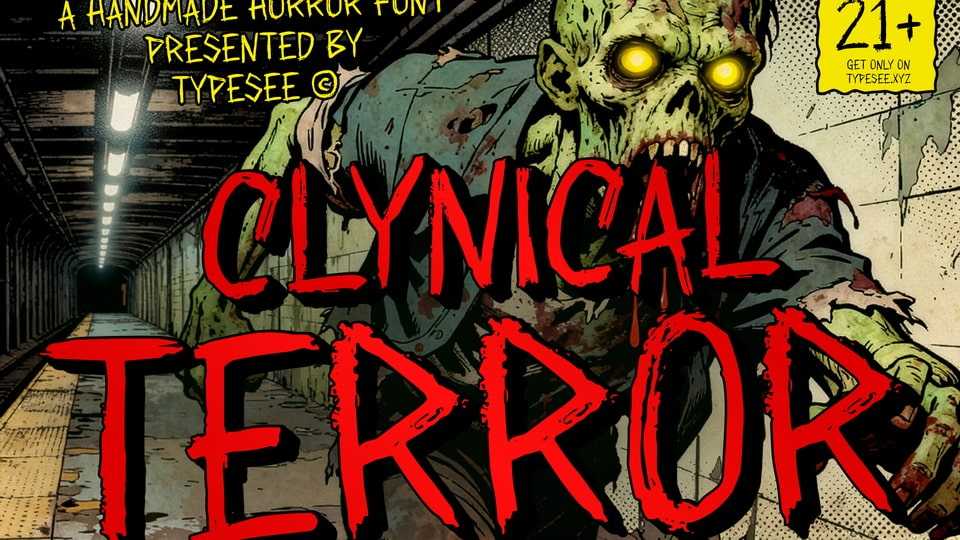
Download Clynical Terror font, a handmade horror typeface dripping with fear and madness. Its rough brush strokes and chaotic energy make it perfect for horror posters, zombie movie titles, and Halloween branding.
Designer: Typesee Typefoundry